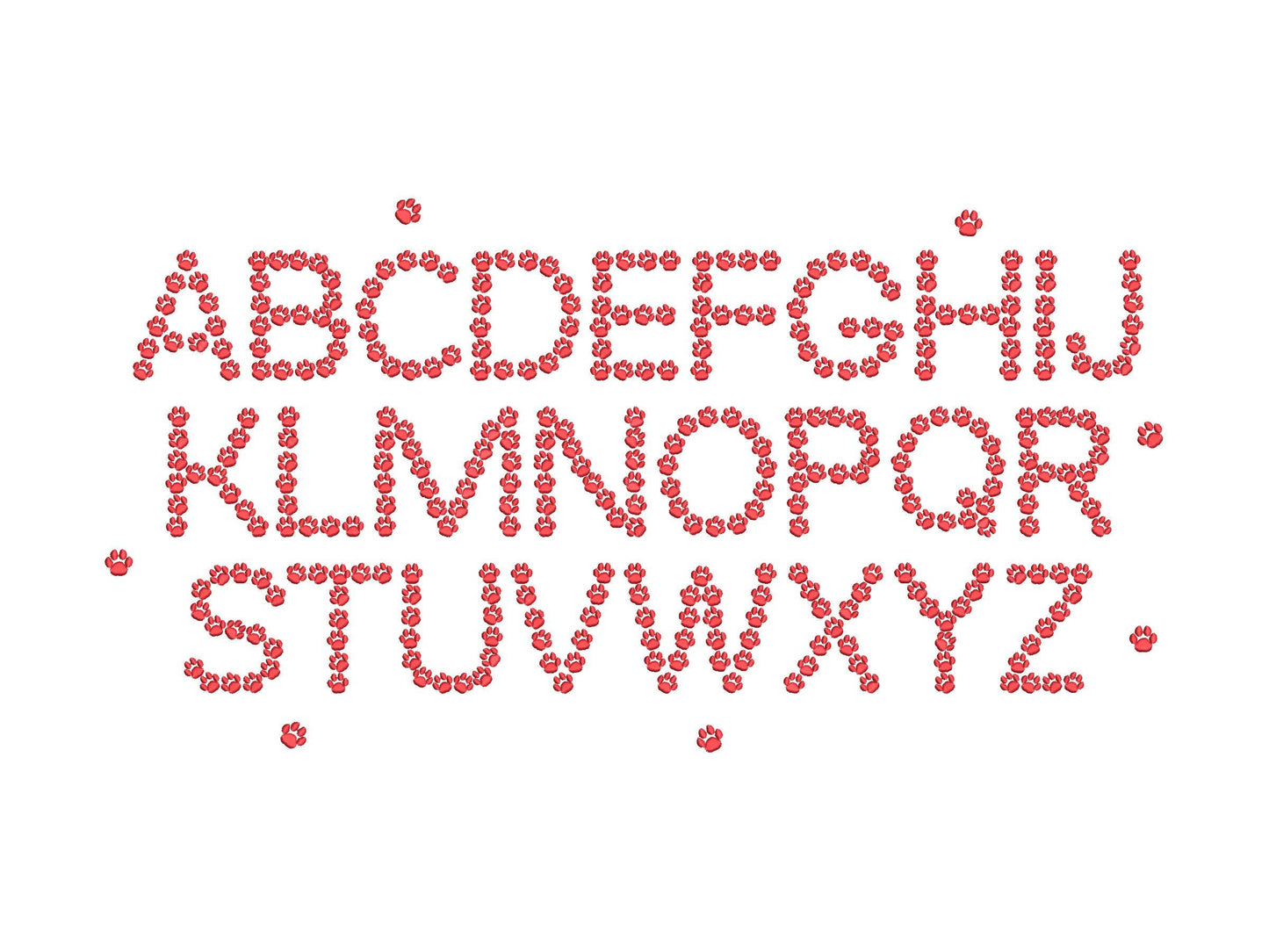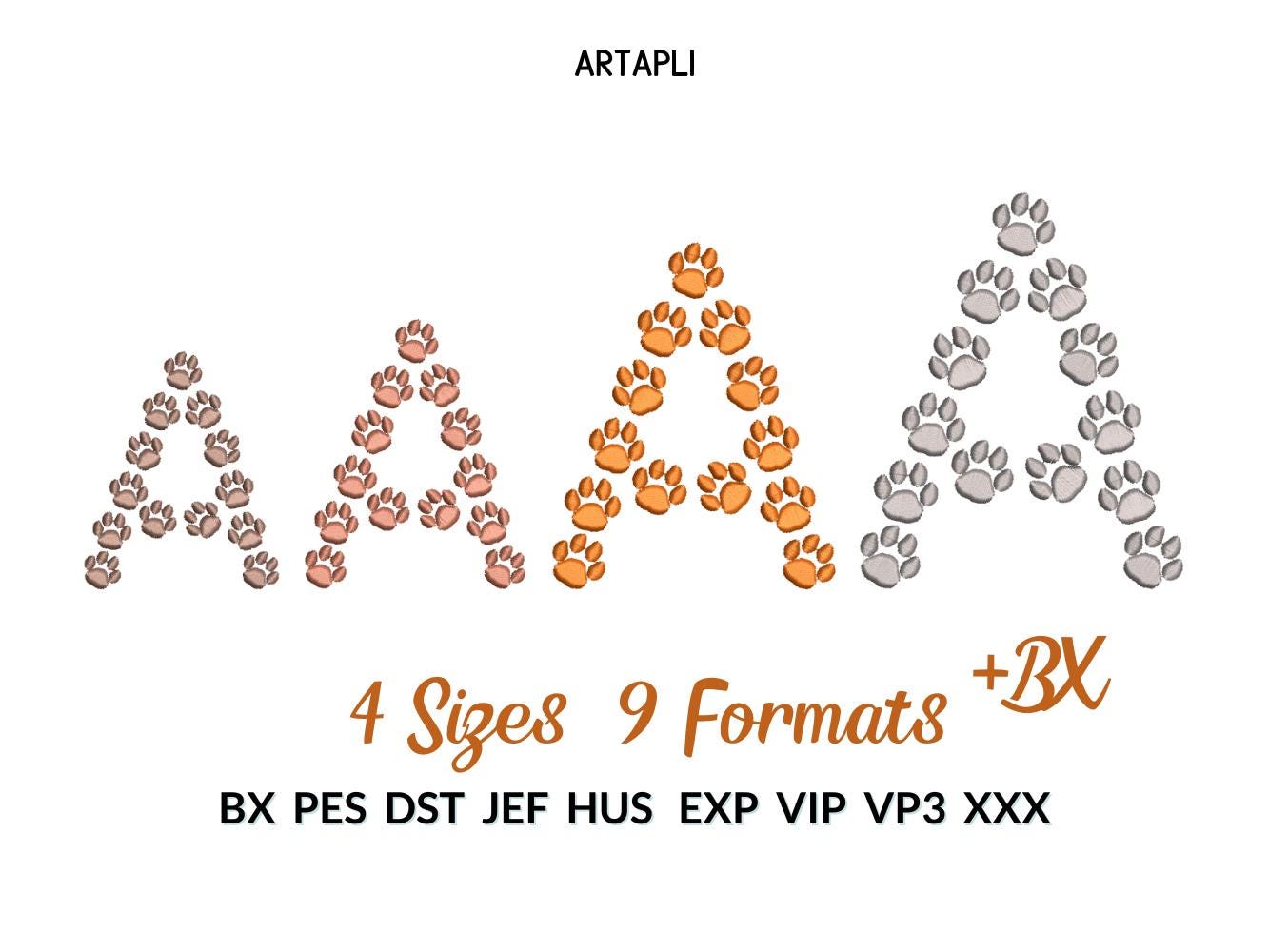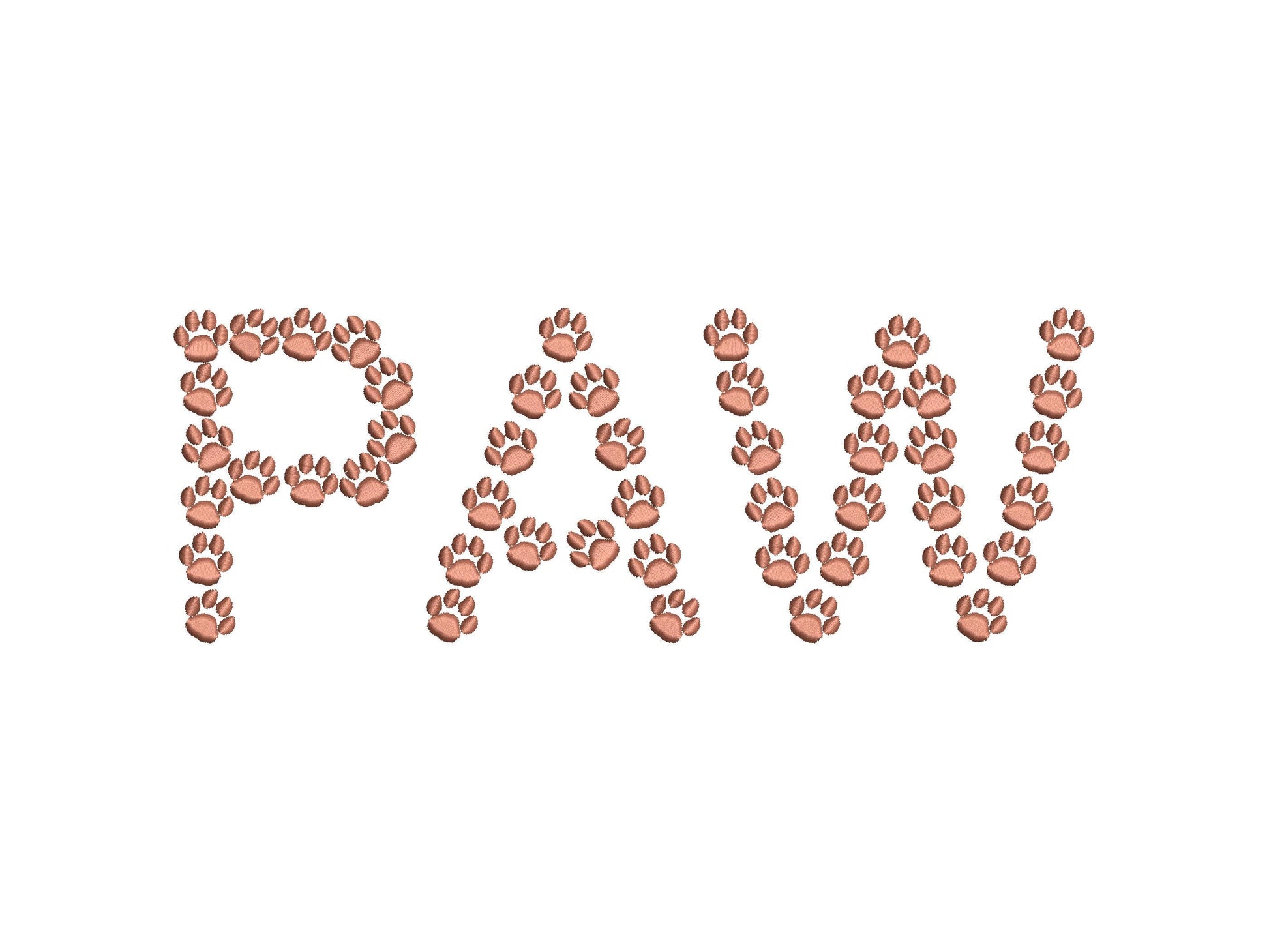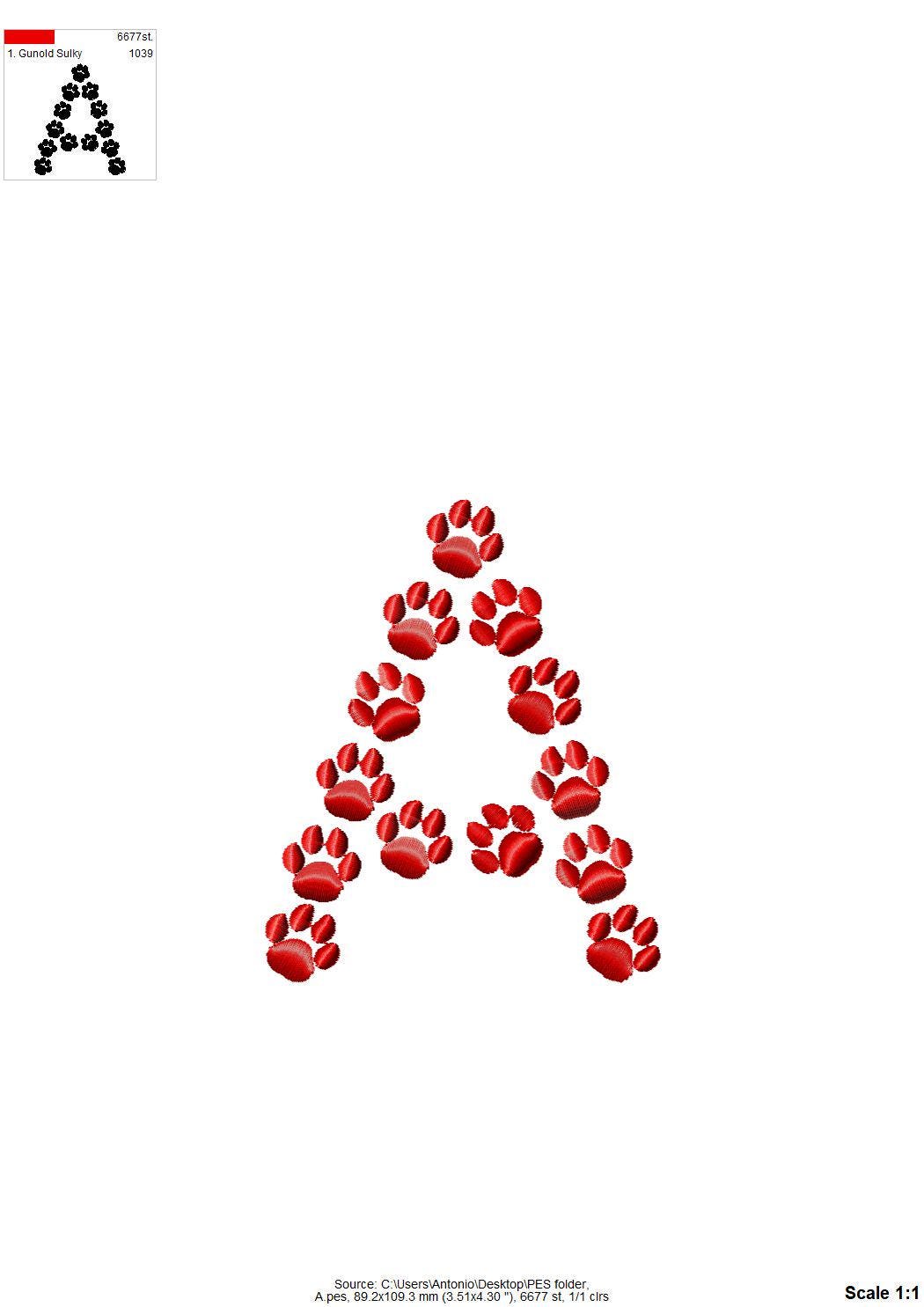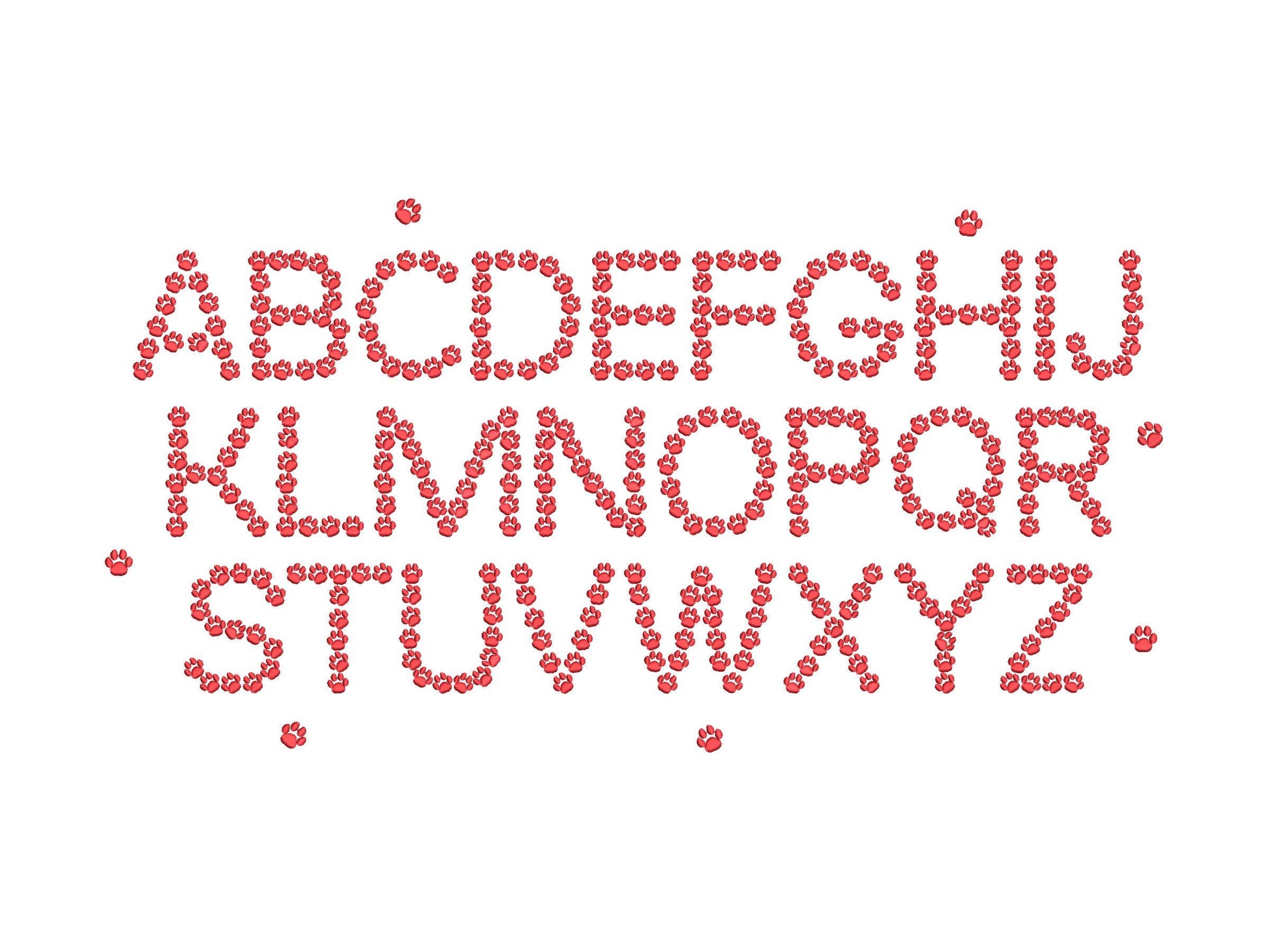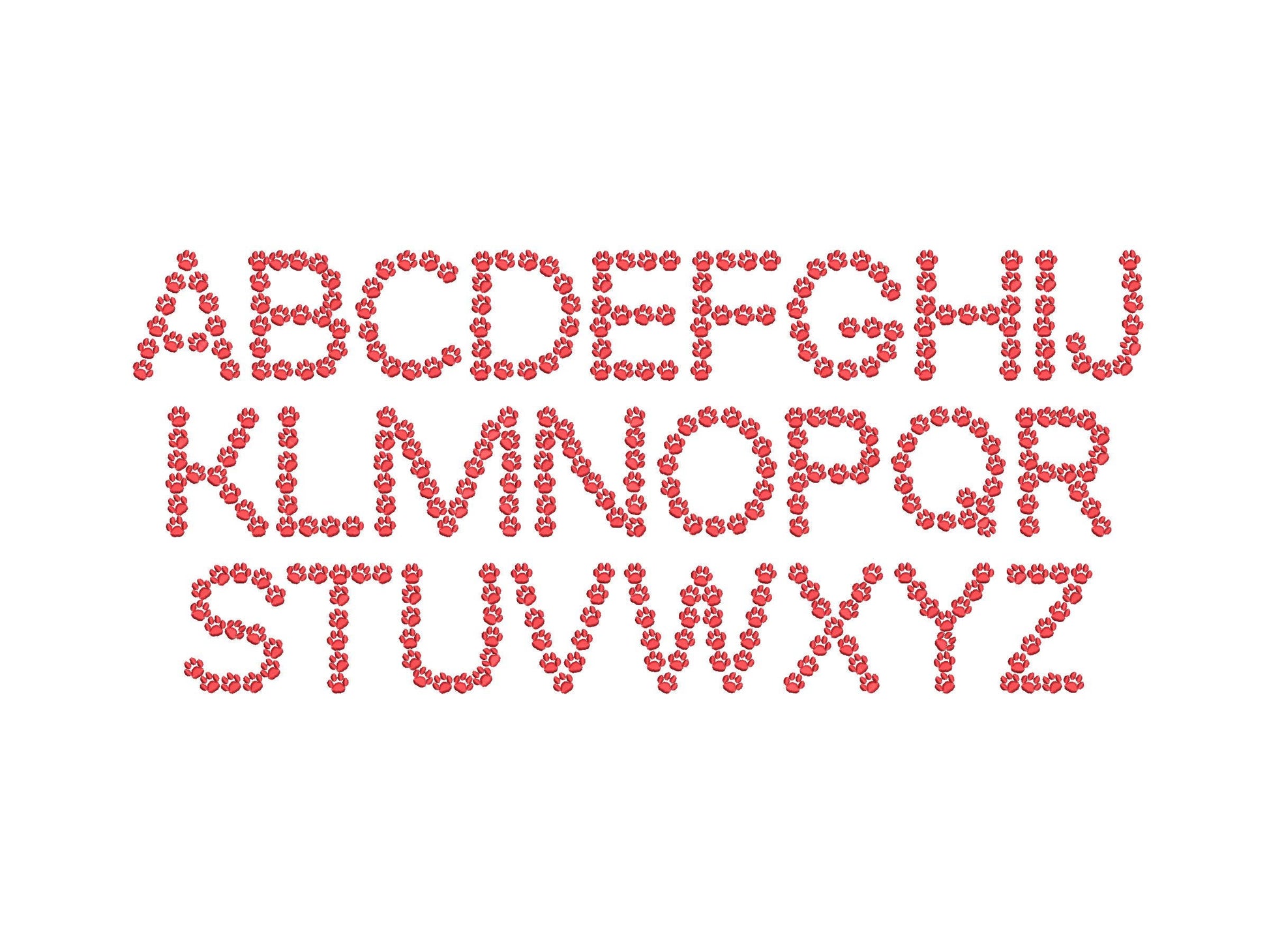
Dog Puppy Paw Font
Or click to open the linkLetters made of tiny dog paw prints. Sweet for pet names, dog lover gifts, pet beds and bandanas.
Uppercase letters A to Z in four sizes: 3, 3.3, 4.3 and 5 inches. Also includes a tiny single paw print of 0.7 inch.
- Paw print letters A to Z